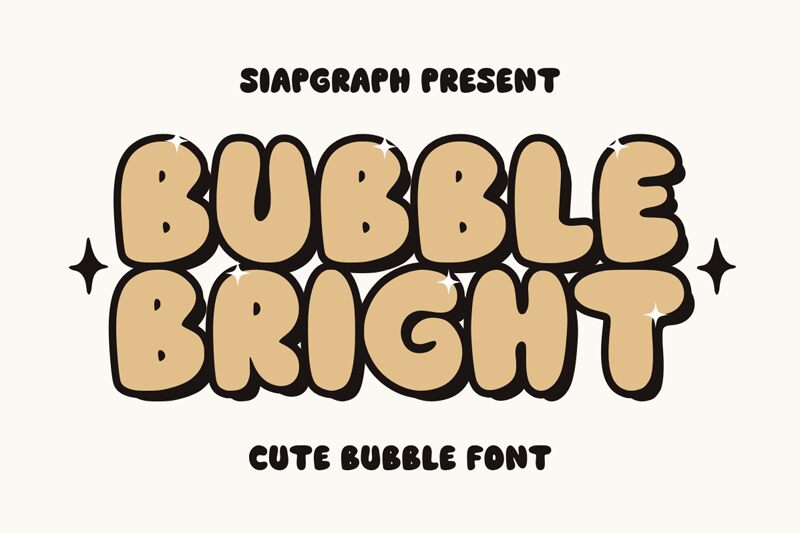
Bubble Bright font by Siapgraph is a free playful cartoon typeface with well-rounded characters that will add extra charm to your projects. Its bubbly, informal nature is inviting and suitable for playful projects, especially those aimed at a younger audience, such as children’s products. The font’s most striking features include its softness and whimsy.
This typeface is ideal for fun branding, game design, product packaging, and even social media graphics and campaigns. Simply visualize its thick and rounded characters on kids’ toys, games, birthday party decorations, etc. It is also highly suitable for posters, flyers, and logotypes.